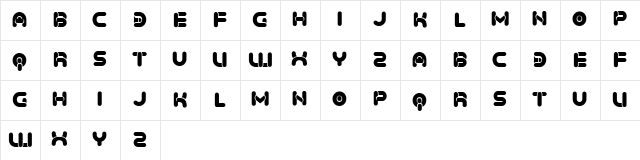
Baked Snails Flat Heavy Regular
Design Context for Baked Snails Flat Heavy Typeface
Baked Snails Flat Heavy offers clean, dependable letterforms without strong stylistic allegiance, making it a practical choice for designers who need flexibility.
Pro Tip: Use Baked Snails Flat Heavy in both headline and body roles to test its range before committing to a single application.